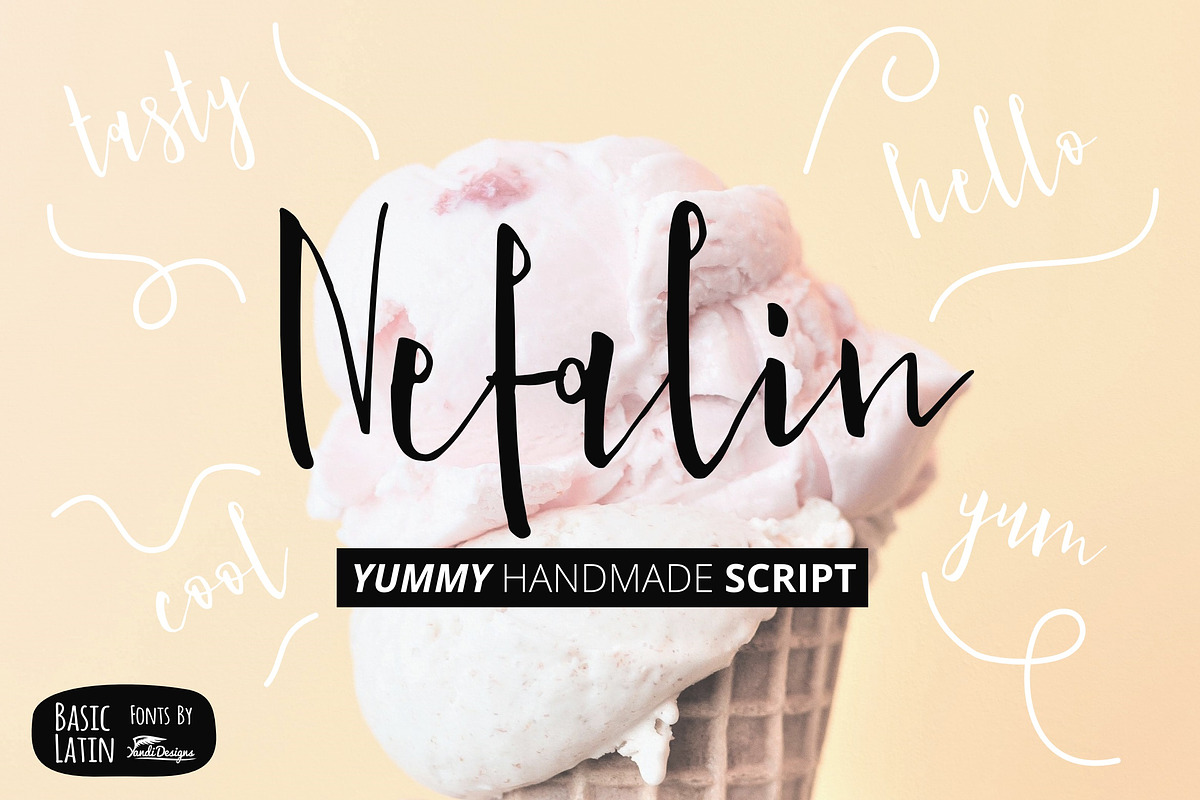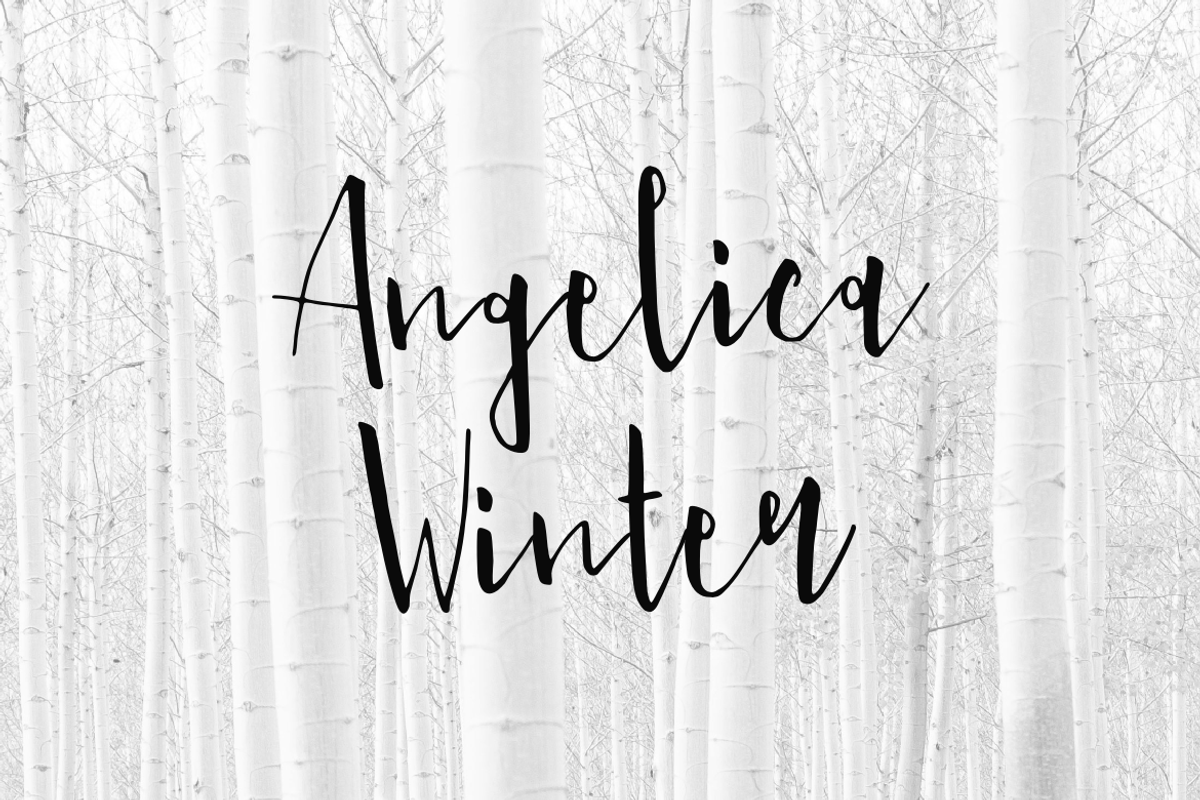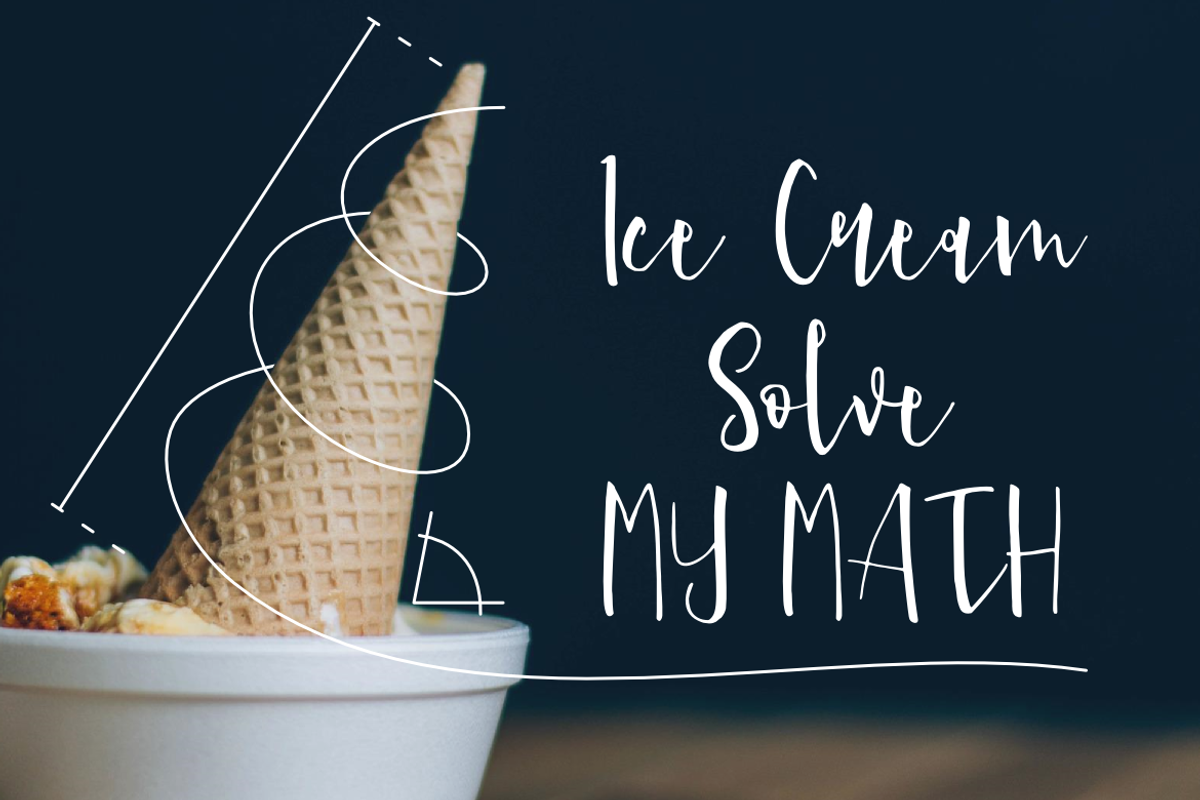
Nefalin Yummy Script Font
Modern handmade script font , suitable for many project , quotes, logo , doodle, heading , title etc.
Why Nefalin Yummy Script Font is worth a look
Nefalin Yummy Script Font by YandiDesigns fits naturally into Branding, posters, packaging, typography.